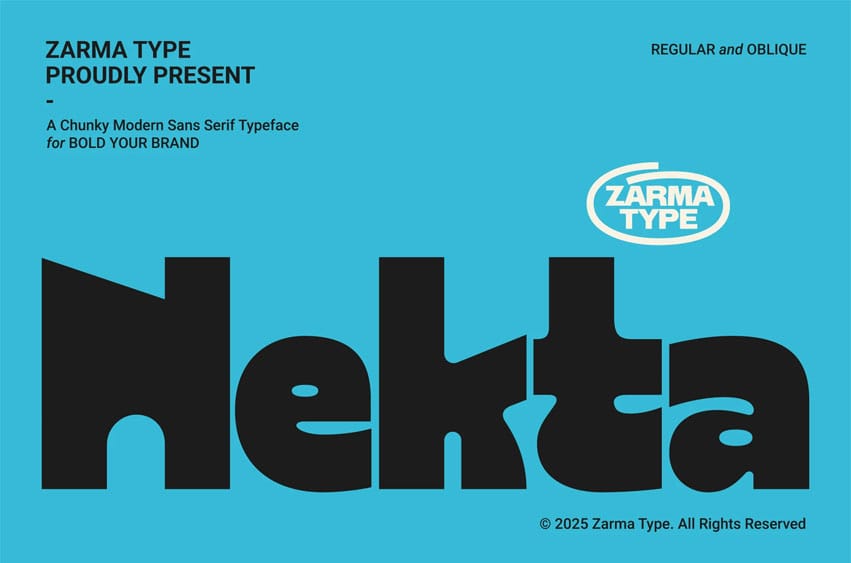
Nekta Font is a chunky modern sans serif display font with a bold, confident personality and a soft, friendly edge. Its heavy letterforms, curved cuts, and tight rhythm give every word a strong presence, while the rounded details keep it approachable and fun. Nekta is made for designs that want to feel playful but still look clean and contemporary – the kind of typography that instantly grabs attention on a poster, label, or logo.
From “letters live forever” statements to cafe menus, sports tickets, and colourful fruit jam labels, Nekta handles it all with ease. Use it for short phrases, headlines, or logotypes when you want your message to speak loud and clear. Uppercase and lowercase characters, numbers, punctuation, and multilingual support make Nekta a reliable display workhorse for branding, editorial layouts, and digital graphics.
Perfect For:
- Logo design & bold wordmarks
- Food & beverage packaging, fruit jam and snack labels
- Playful kids’ brands, playgrounds, and education projects
- Event posters, concert flyers, and sports tickets
- Menus for cafes, beach bars, and casual restaurants
- Statement quotes and editorial headlines
- Stickers, badges, and merchandise graphics
Give your typography a bold, playful backbone with Nekta – Chunky Modern Sans Serif Display Font. Drop it into your next logo, poster, or packaging project, let those chunky shapes do the talking, and watch your design stand out with effortless style.